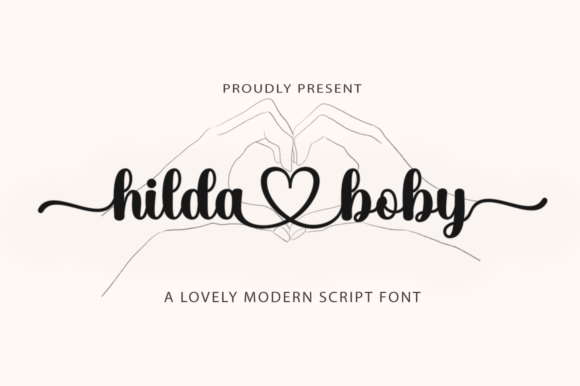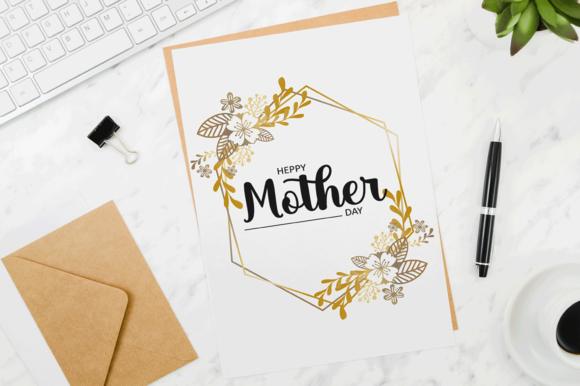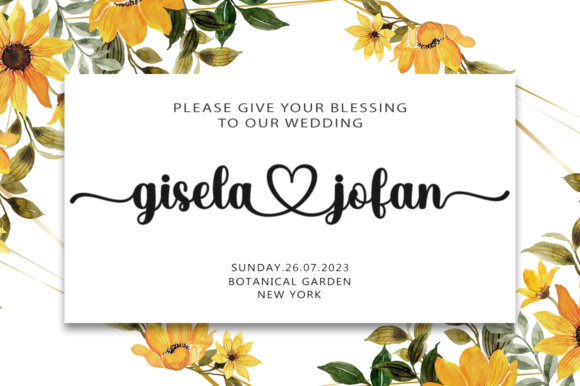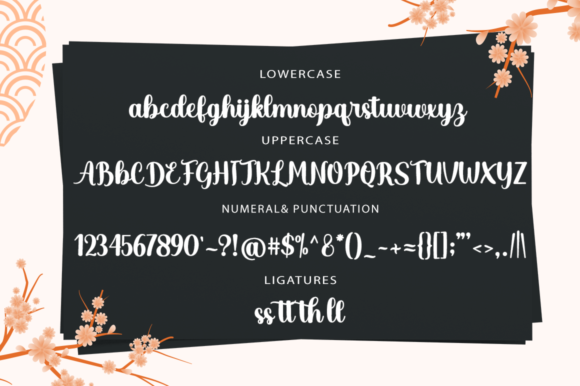
Hilda Boby Script is a romantic and sweet calligraphic typeface with characters dancing along the baseline. This will add a spark of luxury to any design project you want to create! Hilda Boby Script is PUA encoded which means you can access all the amazing glyphs and ligatures with ease!